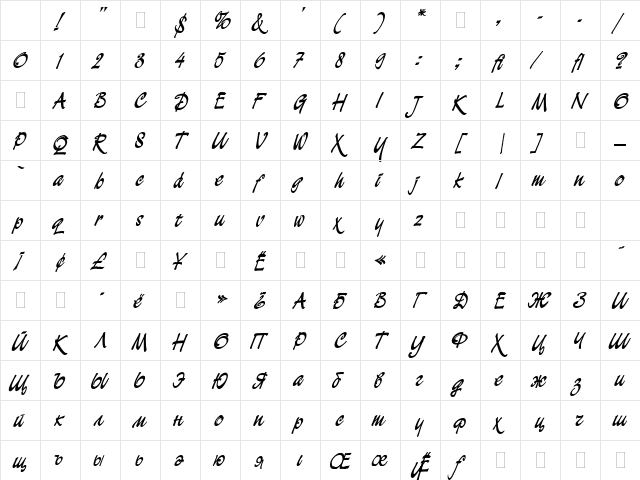
Complete Demian Cyr Plain1.0 glyph index. Displaying only characters natively supported by Demian Cyr Plain1.0 font.
Demian Cyr is a composed and adaptable typeface that performs quietly and consistently across a wide range of design contexts.